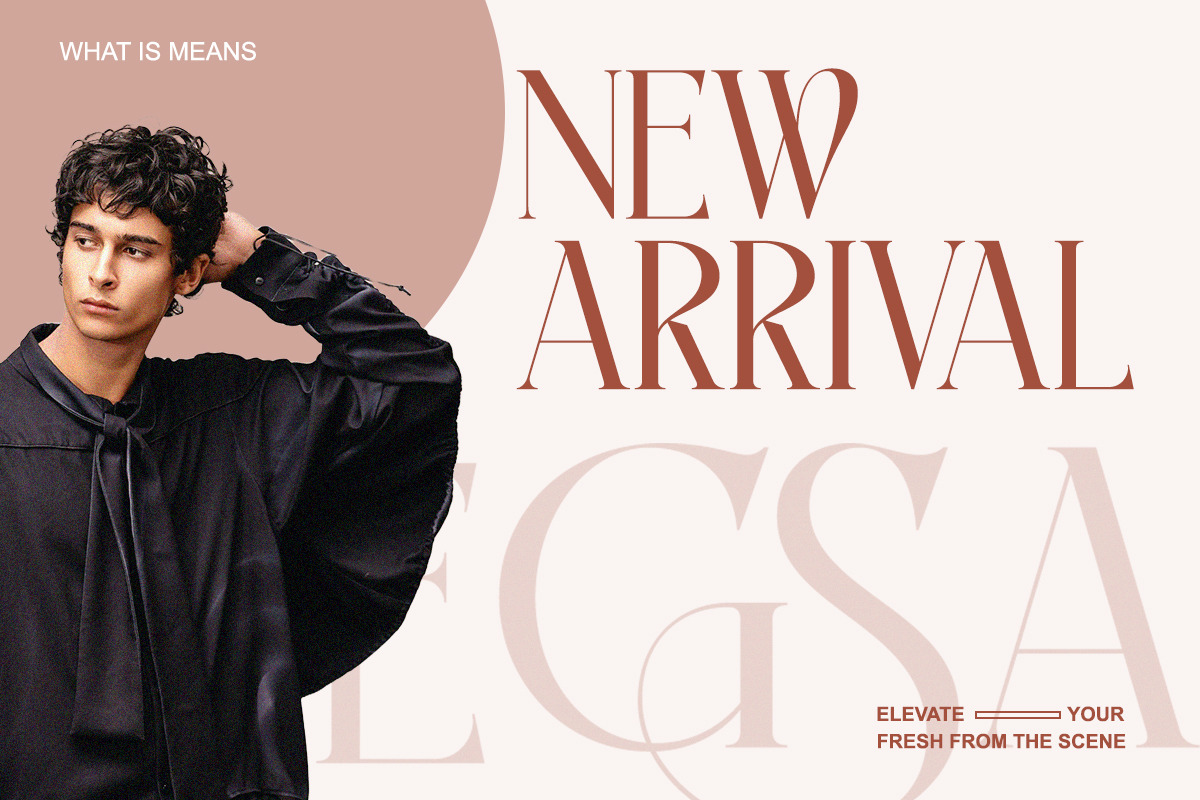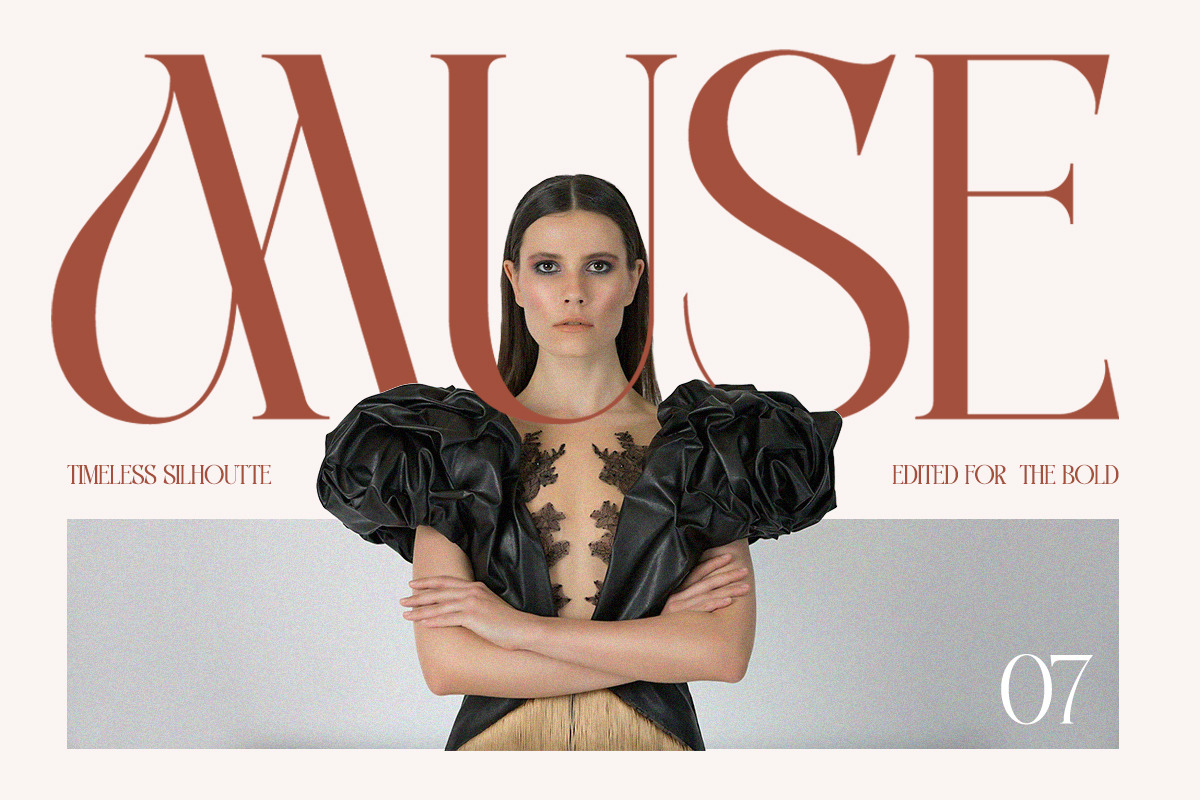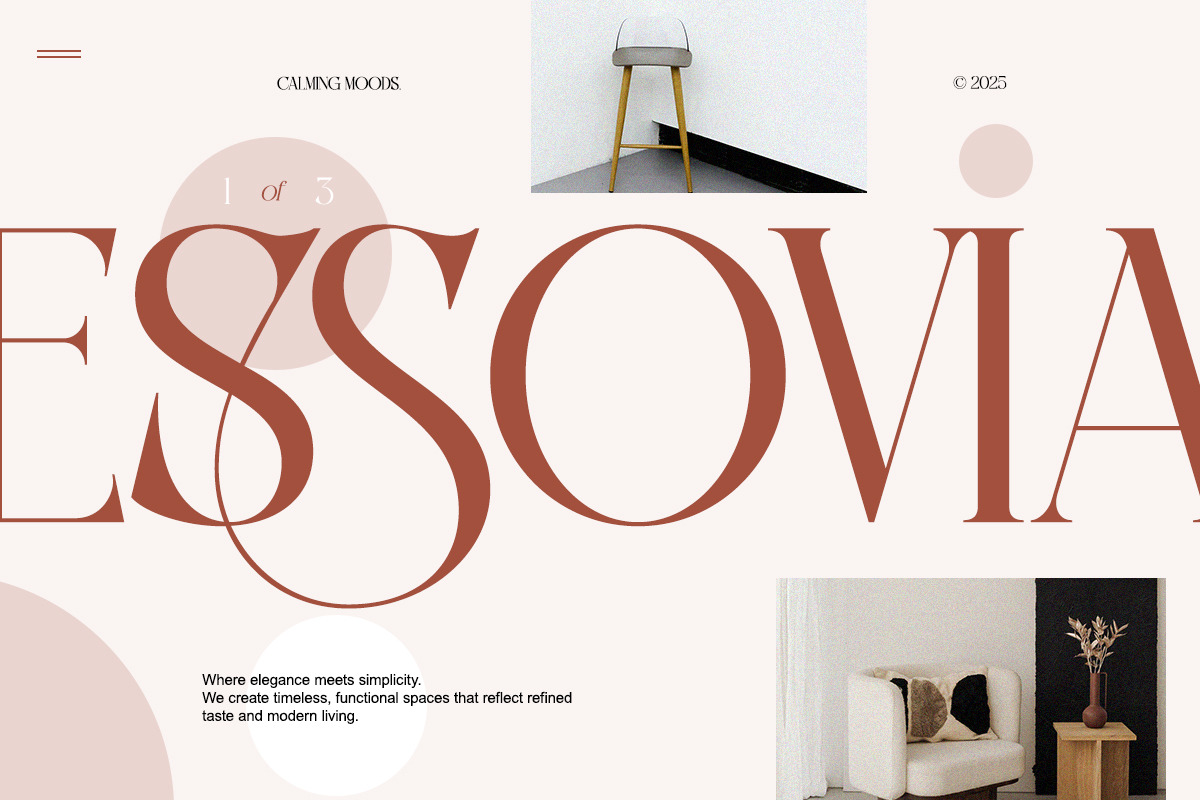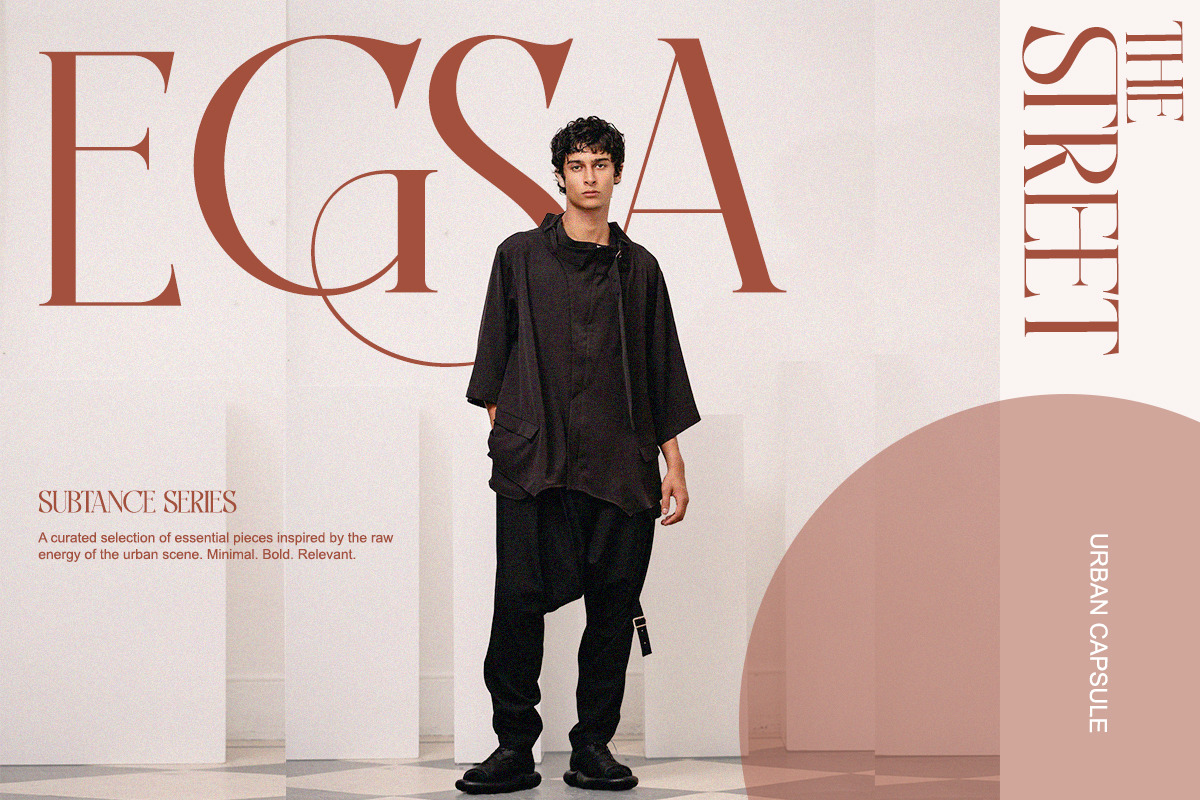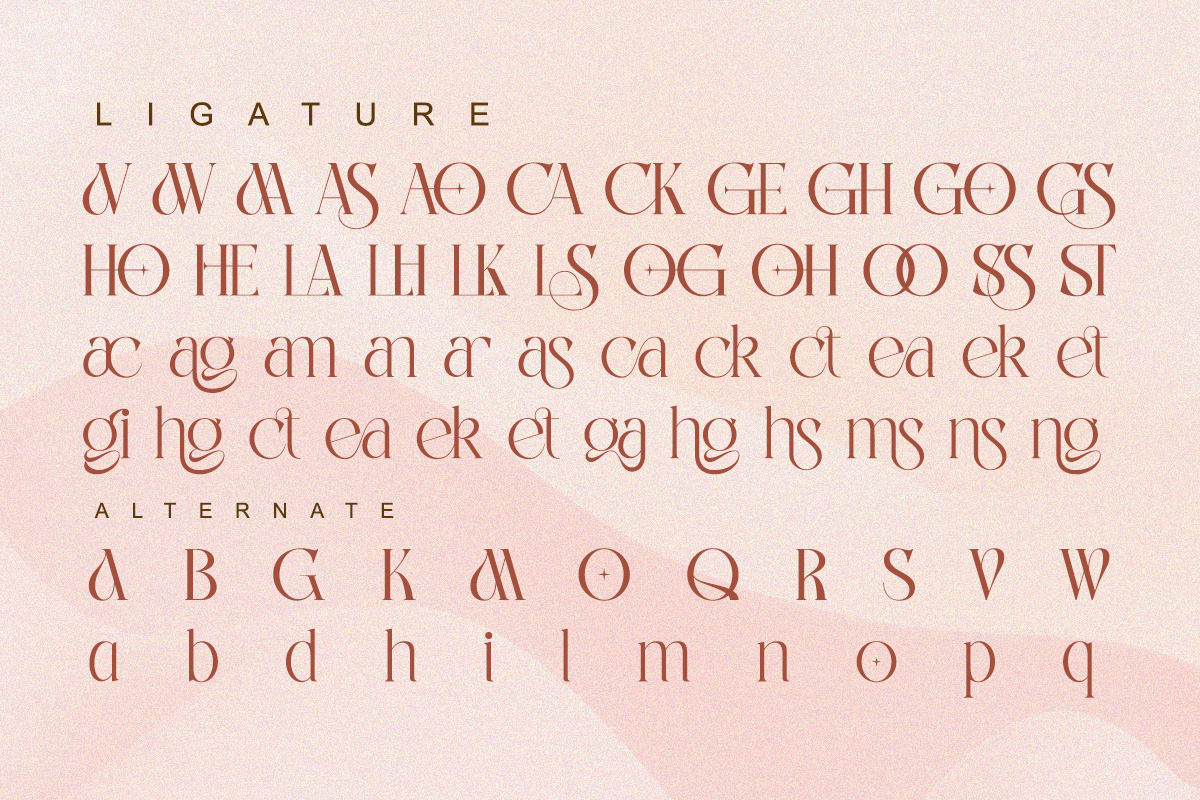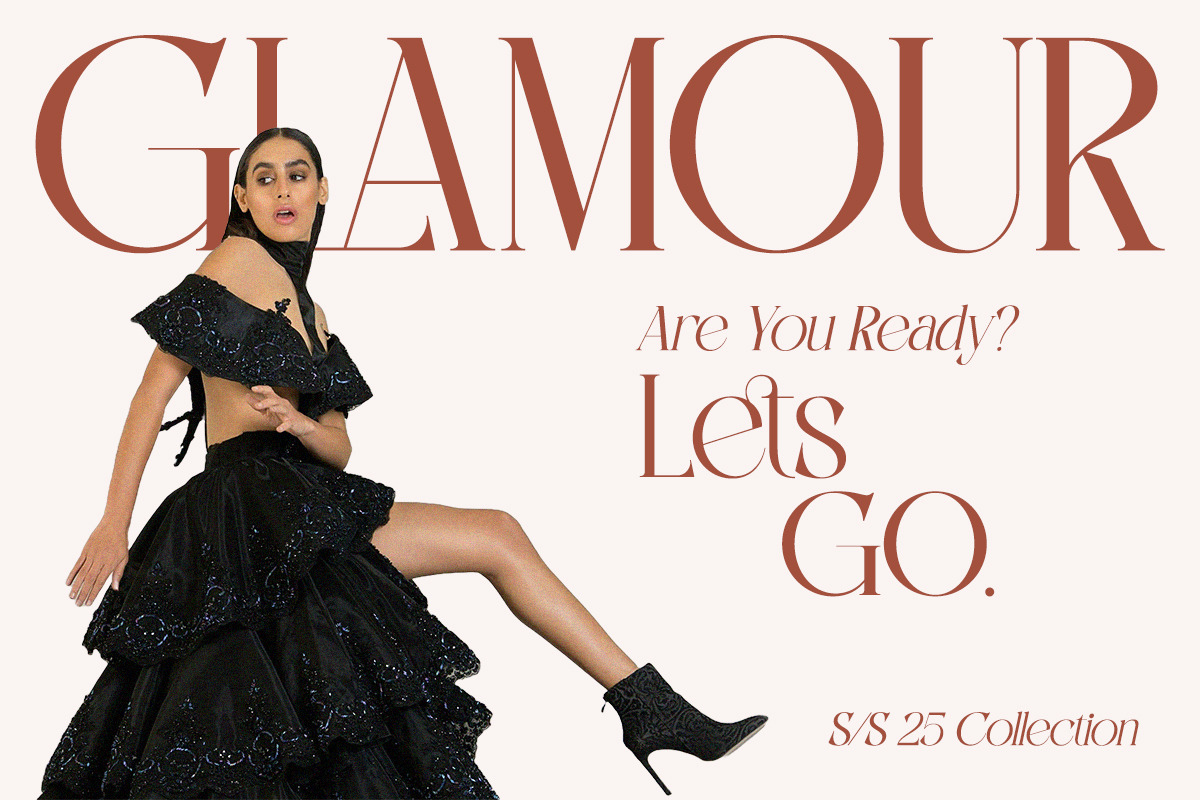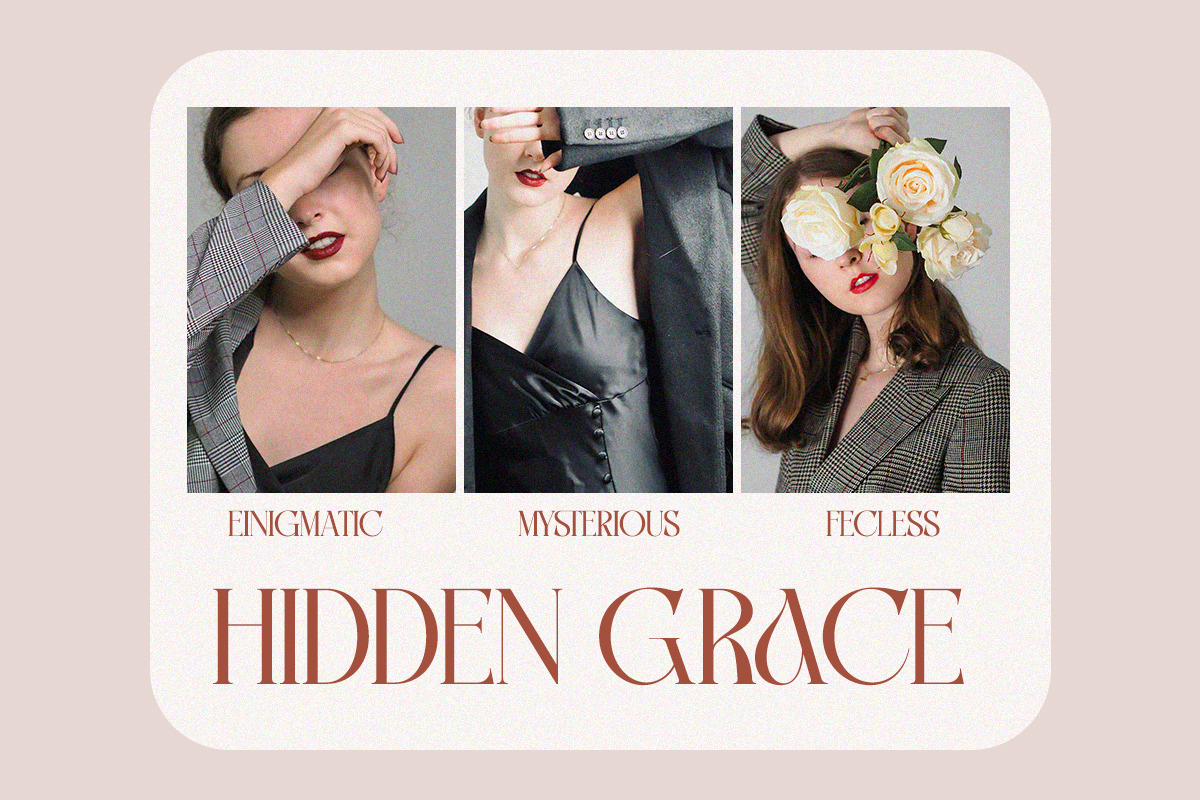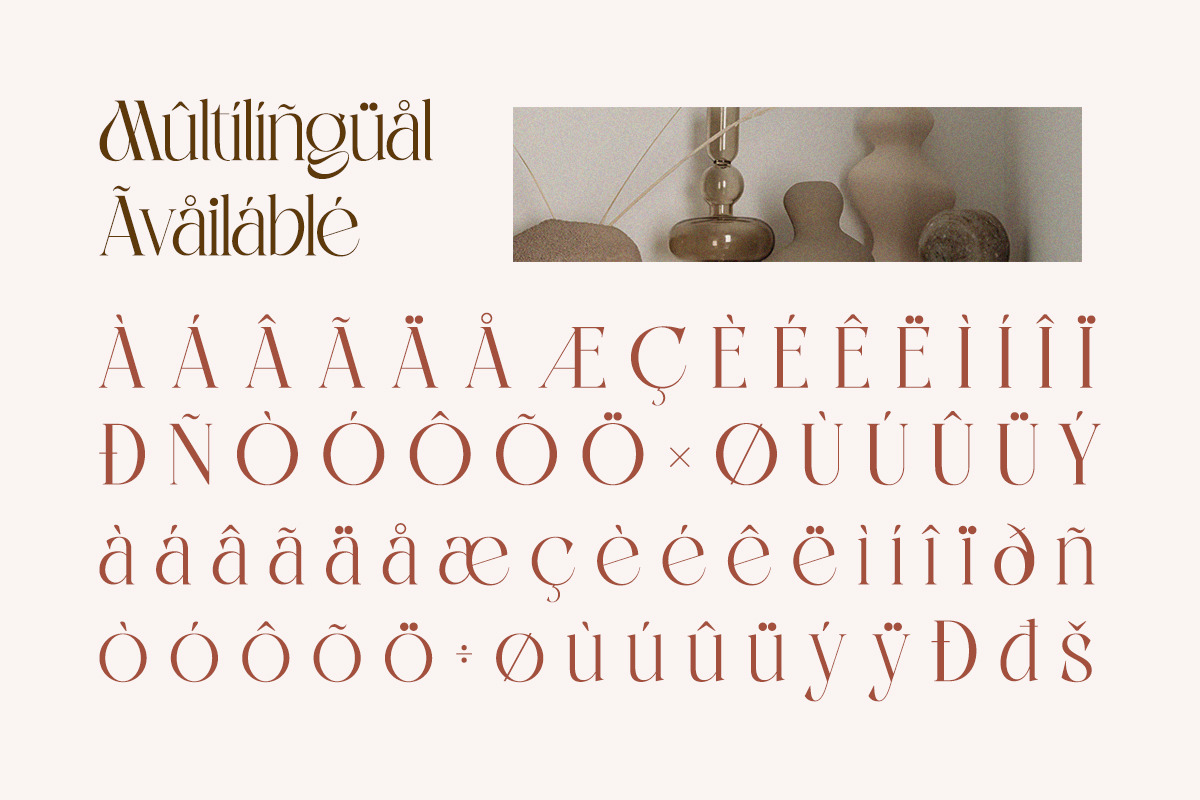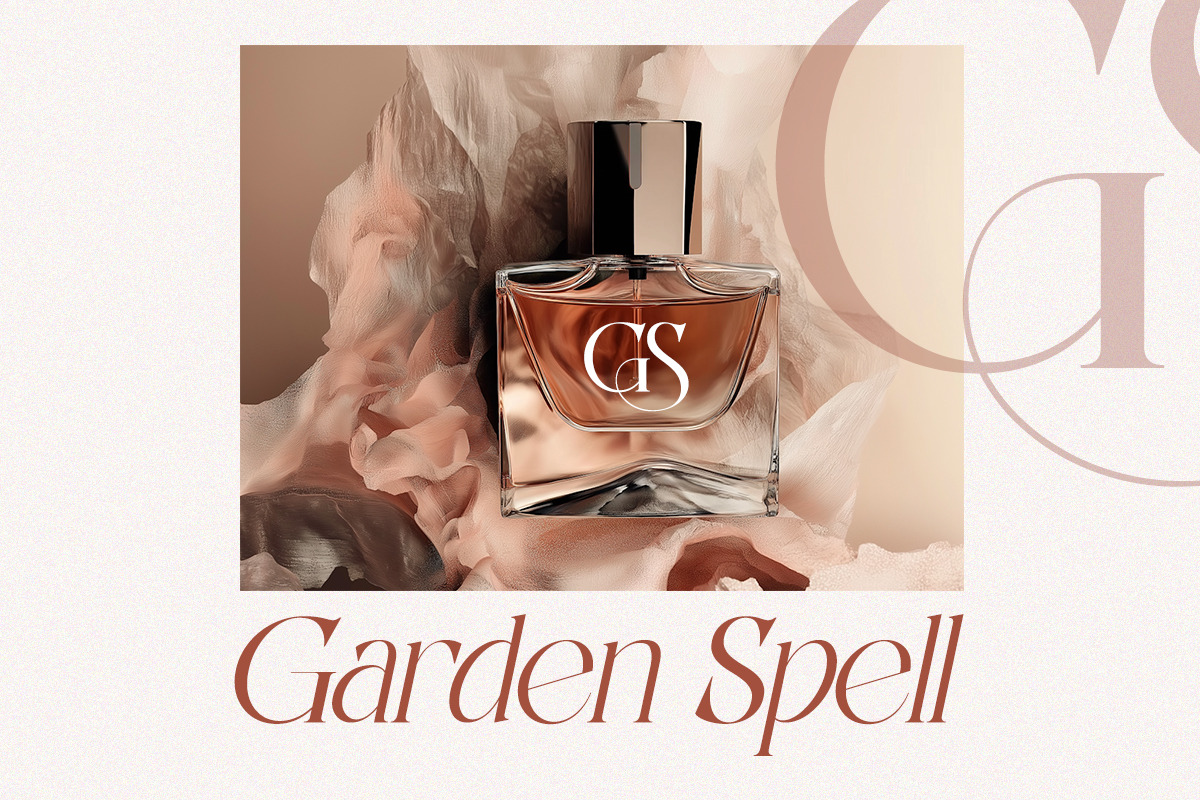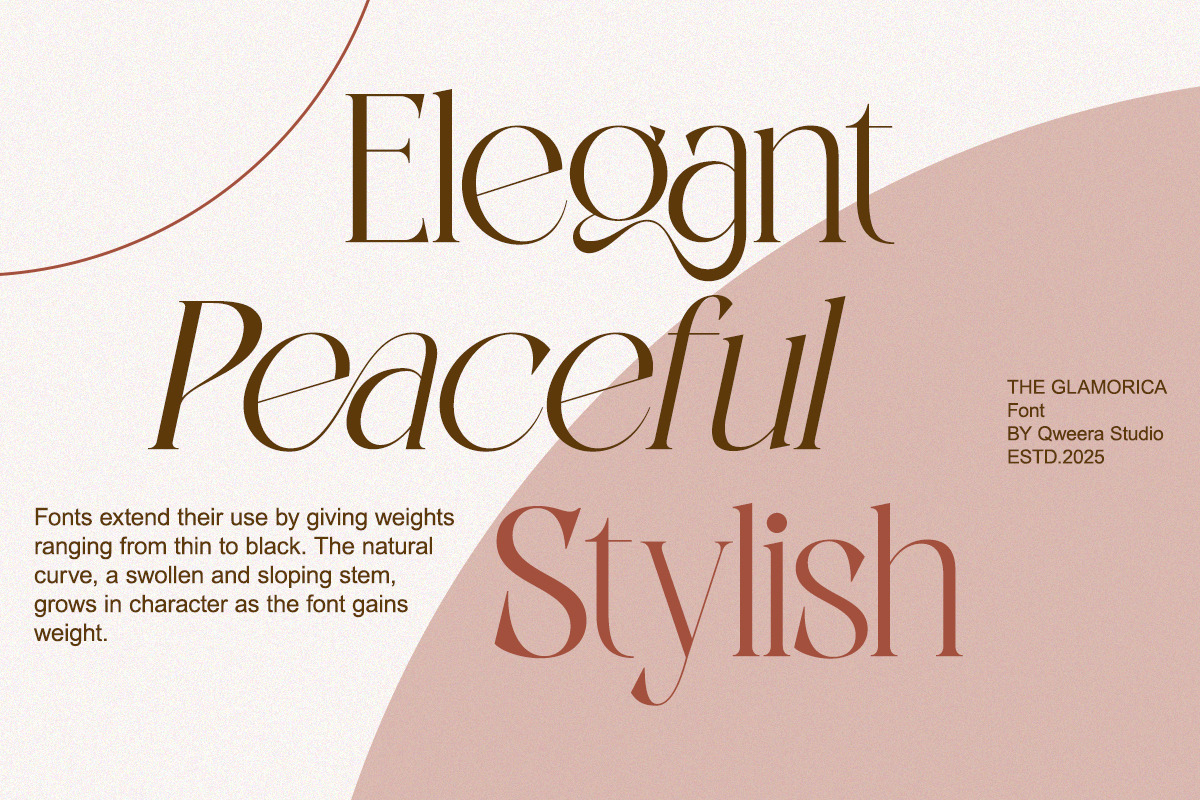
The Glamorica - Modern Elegant
The Glamorica is a sophisticated modern serif font crafted for elegance, luxury, and high-fashion design.
With its refined curves, sleek condensed form, and graceful letter shapes, this typeface elevates every project into a statement of timeless style. Perfect for brands seeking a polished and exclusive visual identity, The Glamorica brings a luxurious presence to your typography.
From high-end packaging to premium editorial layouts, this font delivers unmatched elegance.
- Regular & Italic
- Alternates & ligatures
- Elegant condensed letterforms
- Luxury fashion branding
- Editorial & magazine layouts
- High-end packaging design
- Invitations & event stationery
- Boutique logos & identity
- Upscale web headers
Elevate your designs with The Glamorica’s modern refinement.